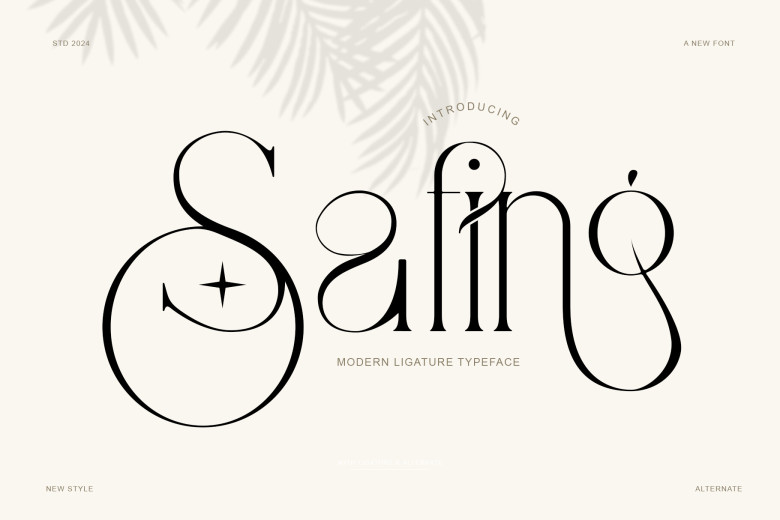
Safing is an elegant and classy serif typeface – It is sufficiently simple as well as somewhat old-fashioned and would prove perfect for logos, magazines, and social media. Accordingly, idealized for use as a pair in this article, and just waiting to be used in a design project! To the ones who are craving for some elegance, style, class, chic and modernity added into the concept of their designs, then this font is made just for you!
Safing has been constructed with OpenType aspects; it contains ligatures, numbers, as well as punctuation and other languages.
Safing Serif Font